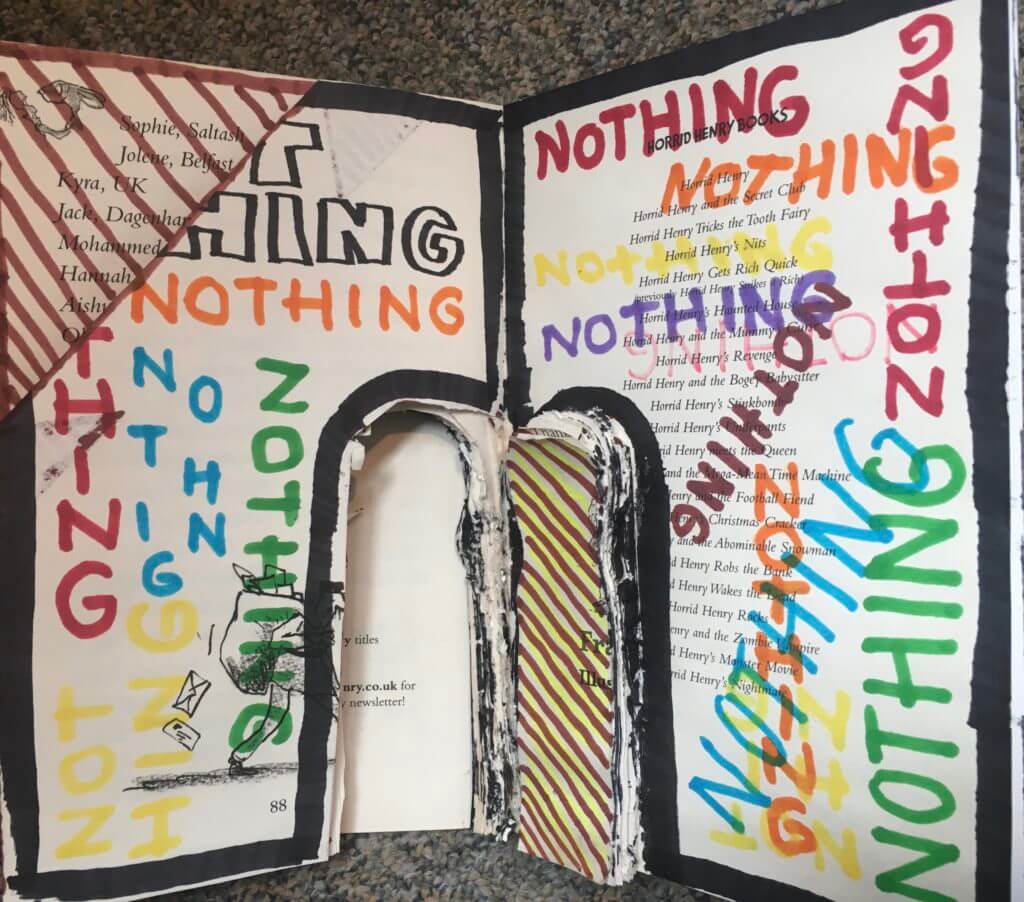
Obsession Book
BERTA’S BROKEN NARRATIVES PROJECT
In Berta’s ‘broken narratives project’ i chose the theme ‘Obsession’
The book connotes the story of a woman sat in a library, she then sees what she thinks is a mouse in the corner of the room. She slowly starts to dismantle the room bit by bit, this is seen in my book through cut outs and folded pages throughout the book. The final bit of the book which can be seen above and in the featured image, shows the word ‘Nothing’ repeated in different colours and directions this depicts that the woman found nothing and that she was obsessing over something that didn’t  exist. Throughout the book i cut a silhouette of a person which can be seen when the the pages of the book are flipped, this represents the woman throughout the story.
What I enjoyed
I enjoyed experimenting with different tools to represent parts of the story throughout the book, i used scissors, Glue, Markers and a craft knife to depict parts of the story. I feel like i could have made the presentation of the project better, but overall I am happy with the way parts of it turned out. For example, I like how the woman’s silhouette shows throughout the book.